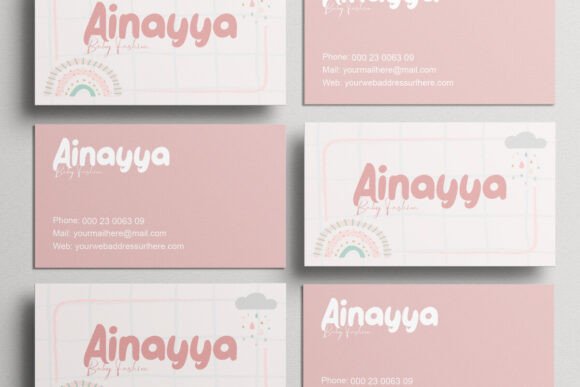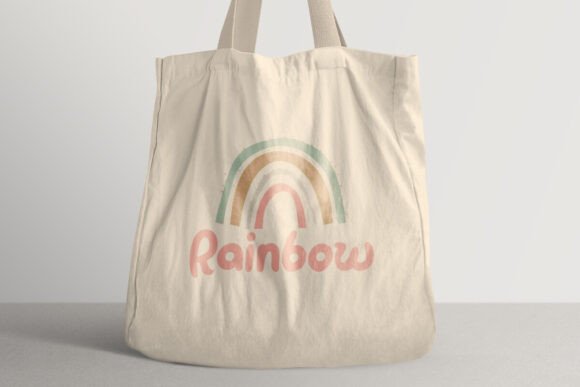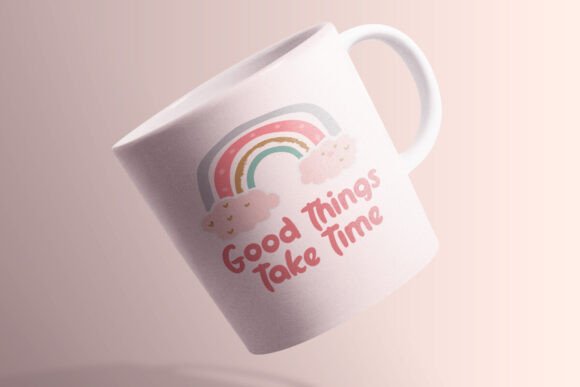
Introduction to Lucky Rainbow Font
As a designer, have you ever found yourself staring at a blank canvas, searching for that perfect font to bring your creative project to life? We’ve all been there – the moment of blankness, the feeling of uncertainty, and the desperate need for inspiration. But what if I told you that there’s a font that can make all the difference? Enter the Lucky Rainbow Font, an adorable handwritten brush font that’s about to become your new best friend.
With its playful, whimsical design, the Lucky Rainbow Font is perfect for adding a touch of personality to your projects. Whether you’re working on a brand image, brochure, or custom design, this font is sure to make your work stand out. And the best part? It’s a high-quality design resource that’s available for free download, complete with a transparent background for seamless integration into your designs.
As a valuable resource for designers, the Lucky Rainbow Font offers endless possibilities for creative expression. Its versatility and charm make it an ideal choice for a wide range of projects, from marketing materials to stationery and beyond. Get ready to take your designs to the next level with the Lucky Rainbow Font!
Key Features of Lucky Rainbow Font
- Unique, colorful design perfect for creative projects requiring a playful touch
- High-quality font with transparent background, ideal for use on various design resources
- Supports a wide range of languages, making it a versatile design resource
- Perfect for use in digital designs, such as social media graphics, web pages, and more
- Can be easily customized and edited to fit the specific needs of your creative project
Honest Review: Lucky Rainbow Font
I recently had the chance to work with the Lucky Rainbow Font, and I must say it’s been a delightful addition to my design resource collection. ✨
One of the things that stood out to me was the font’s high quality and versatility. The transparent background allows for seamless integration into various creative projects, and the bold, colorful design makes it perfect for adding a pop of personality to any design.
Here are some of the key features that I appreciated:
Of course, no design resource is perfect, and I did encounter a few limitations:
Overall, I’m really impressed with the Lucky Rainbow Font and would highly recommend it to any designer looking to add a little extra flair to their projects.
Tips for Getting the Most Out of Lucky Rainbow Font
For the best results, use the Lucky Rainbow Font on a transparent background or with a solid color that complements the font’s colors. Experiment with different font sizes and styles to achieve a unique look. You can also use the font in combination with other design elements, such as graphics and images, to create a visually appealing design.
The Lucky Rainbow Font is a versatile design resource that can be used in a variety of creative projects, including social media graphics, business cards, and marketing materials. It’s also a great choice for designers looking for a free download that offers high quality results.